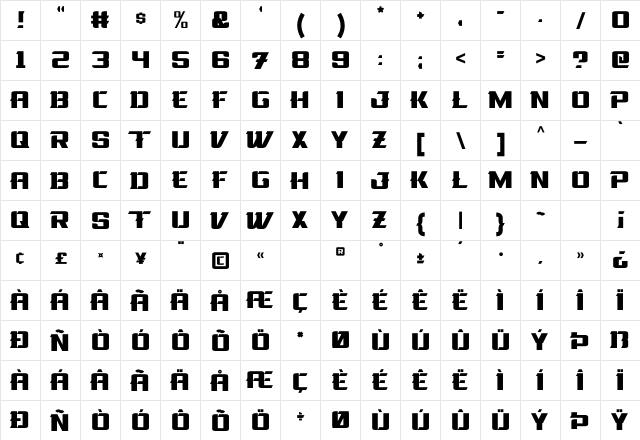
La Oriental Bold
| Foundry | Don Marciano |
| Designer | Juan Miguel Castillo |
Design Context for La Oriental Typeface
La Oriental is a composed and adaptable typeface that performs quietly and consistently across a wide range of design contexts. The heavy weight commands attention and anchors typographic hierarchies.